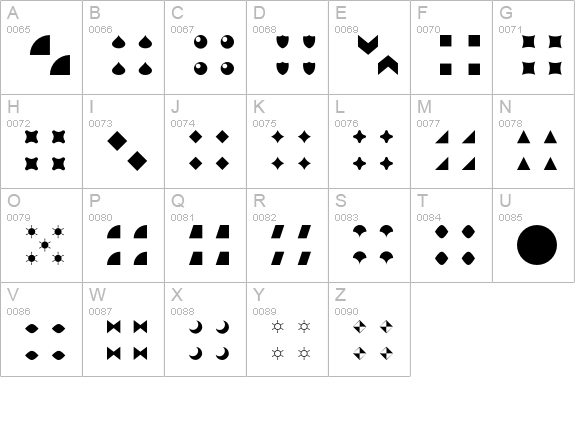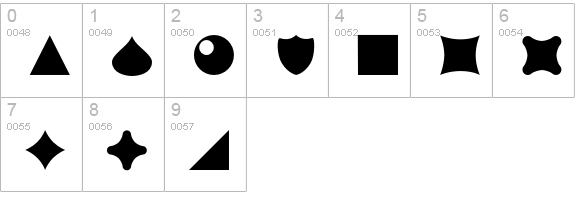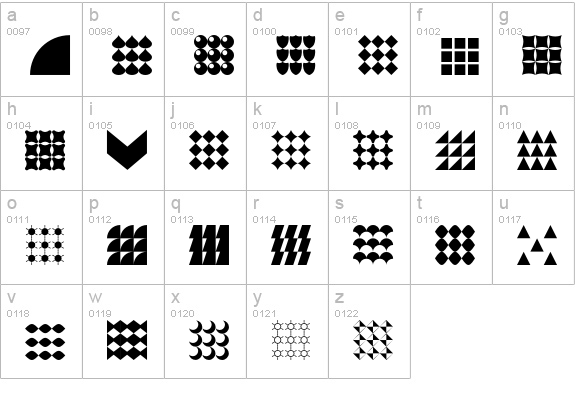
AltemusChecks Font Details
AltemusChecks font is a sophisticated and elegant typeface that exudes a sense of professionalism and class. Its sleek and stylish design makes it perfect for a wide range of projects, from business cards to invitations. The intricate details of each letter give this font a unique and timeless appeal. What sets AltemusChecks font apart is that it is available for free download at FontsMarket.com. This means that you can easily access this stunning font without any cost, making it a valuable addition to your font collection. Whether you're a designer looking for a new font to elevate your projects or an individual wanting to add a touch of sophistication to your personal creations, AltemusChecks font is the perfect choice. Download it today and bring a touch of elegance to your designs!